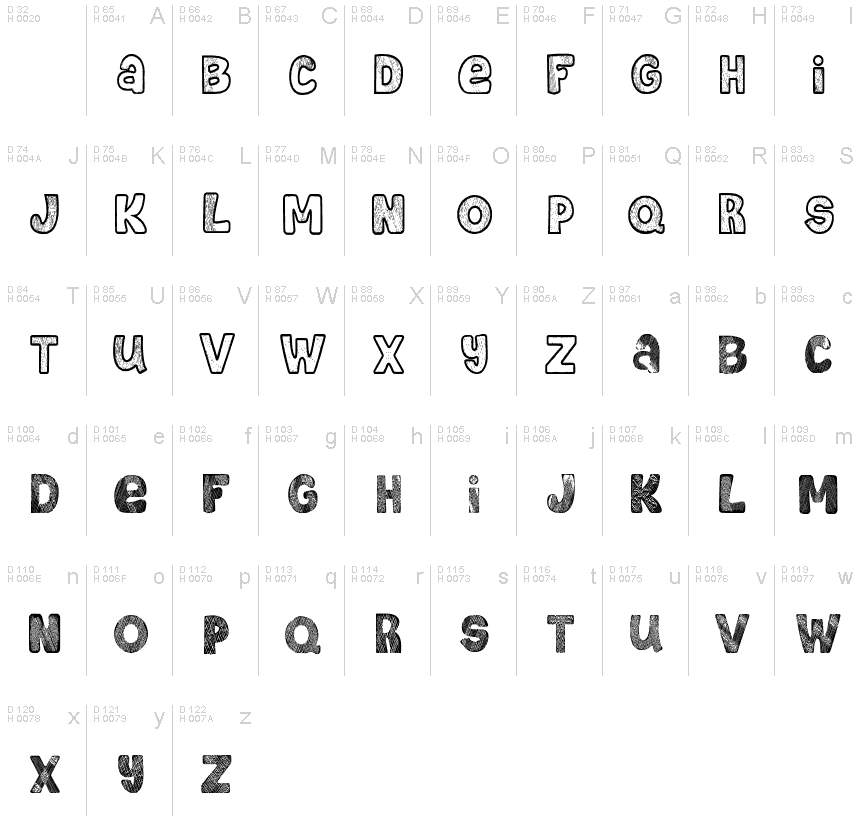
Bubble Hatch Regular
Introducing Bubble Hatch, a bold cartoon display font designed by Tamara Griffin. Perfect for creating playful and eye-catching designs, Bubble Hatch is ideal for projects like children's book illustrations, logo designs and comic strips.